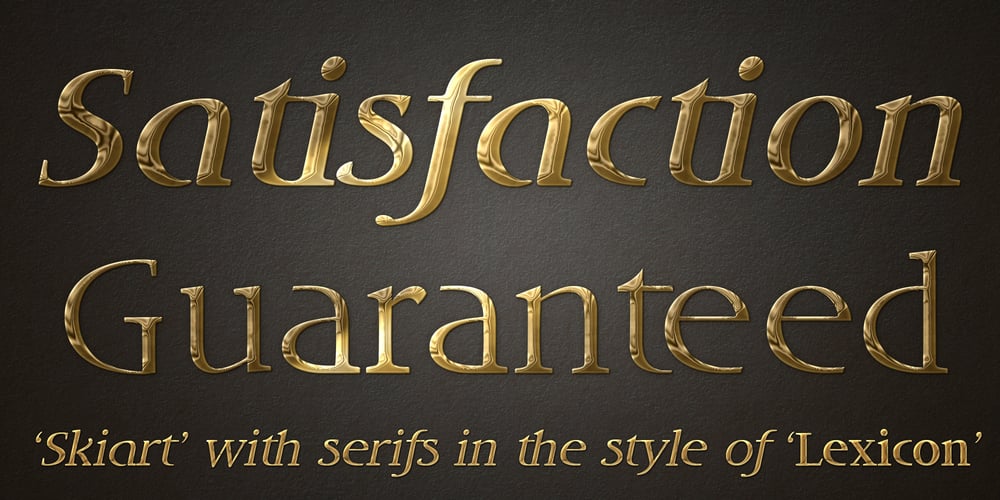
DT Skiart Lexiconic
DT Skiart Lexiconic font
DT Skiart Lexiconic Font Family was designed by Scott Spensley and published by Dragon Tongue Foundry. DT Skiart Lexiconic contains 18 styles and family package options. Apparently, Lexicon is the most expensive font in the world.‘Skiart Lexiconic’ has been on a long growing path getting to where it is now.This font family was originally inspired by the san serif font ‘Skia’, by Mathew Carter for Apple. ‘Skiart’ was designed to feel more like a serifed font, but without any actual serifs. It took a small step between sans serif and serif fonts. Next on the path towards a serif font came Skiart Serif Mini, with tiny serifs added. This was a true serif font, although they were subtle.Then came ‘Skiart Serif Leaf’. and now… We present to you…DT Skiart Lexiconic.Having evolved from the Skiart family, we chose to give it the serifed styling of Lexicon.This is no way a copy or clone of Lexicon. It still has the basic bones of the original Skiart font, but the position, shape and size of the serifs were very much influenced by the world famous Lexicon font.DT Skiart Lexiconic is not the most expensive font in the world.